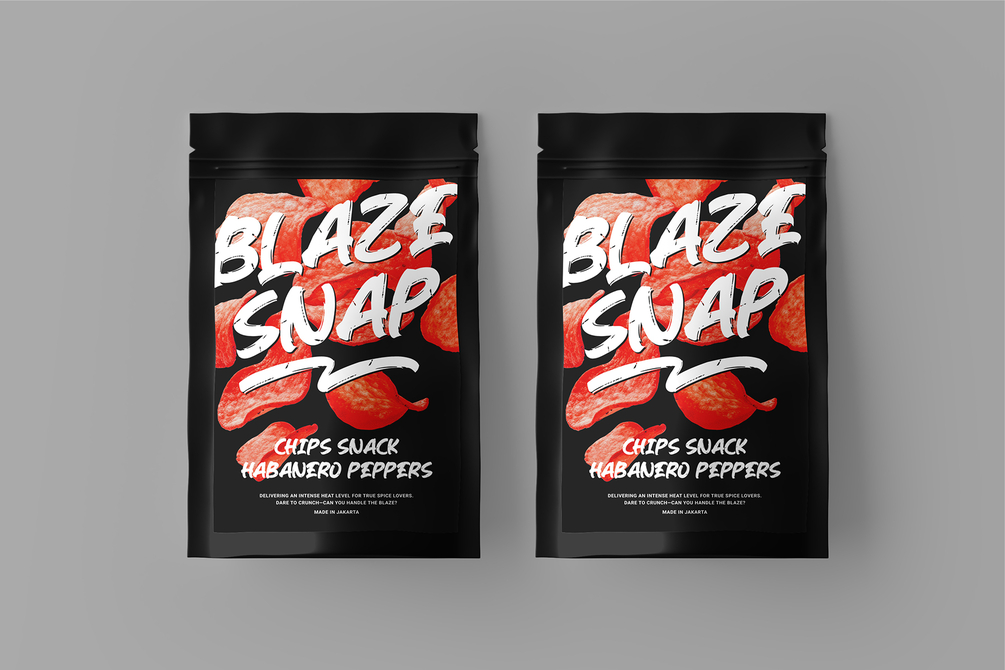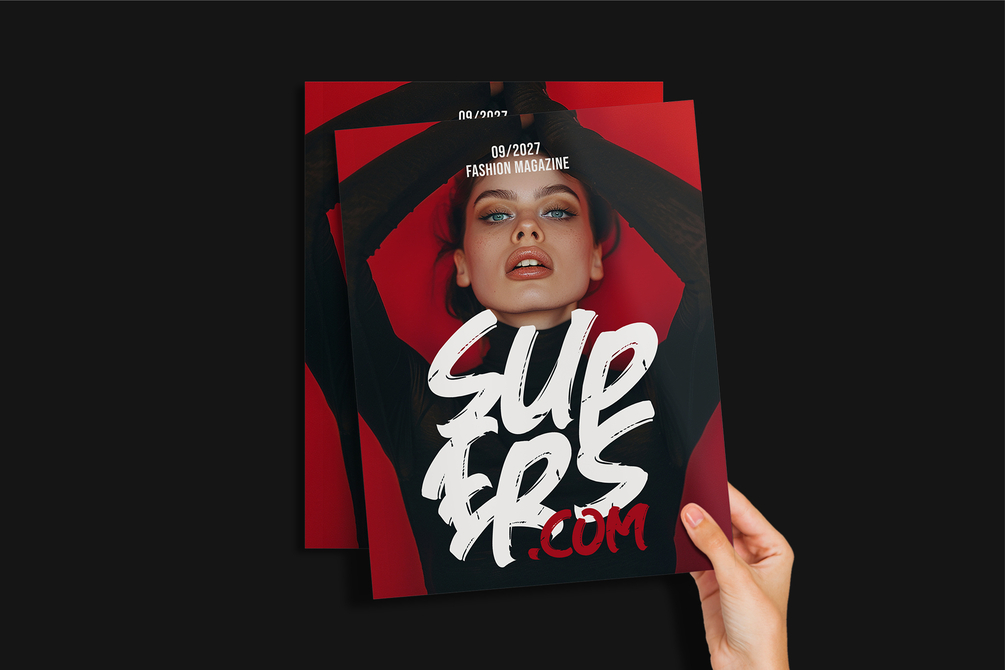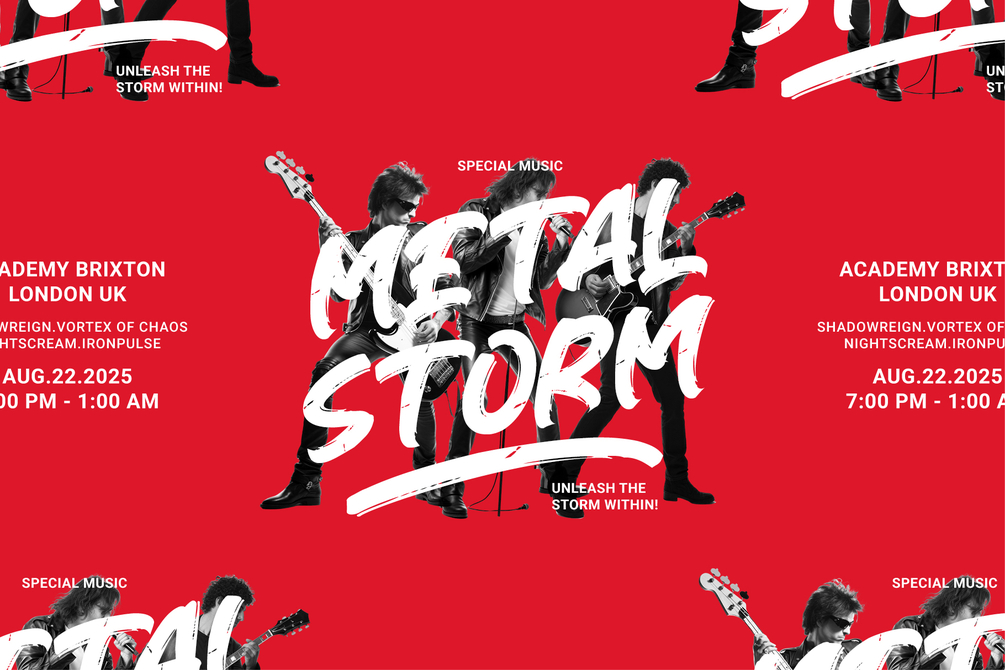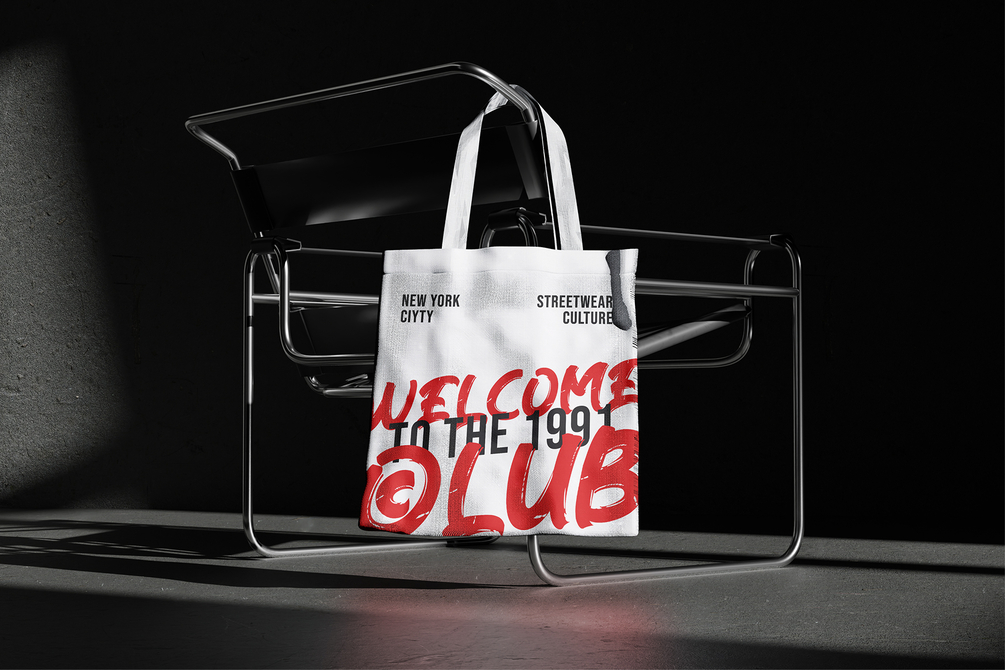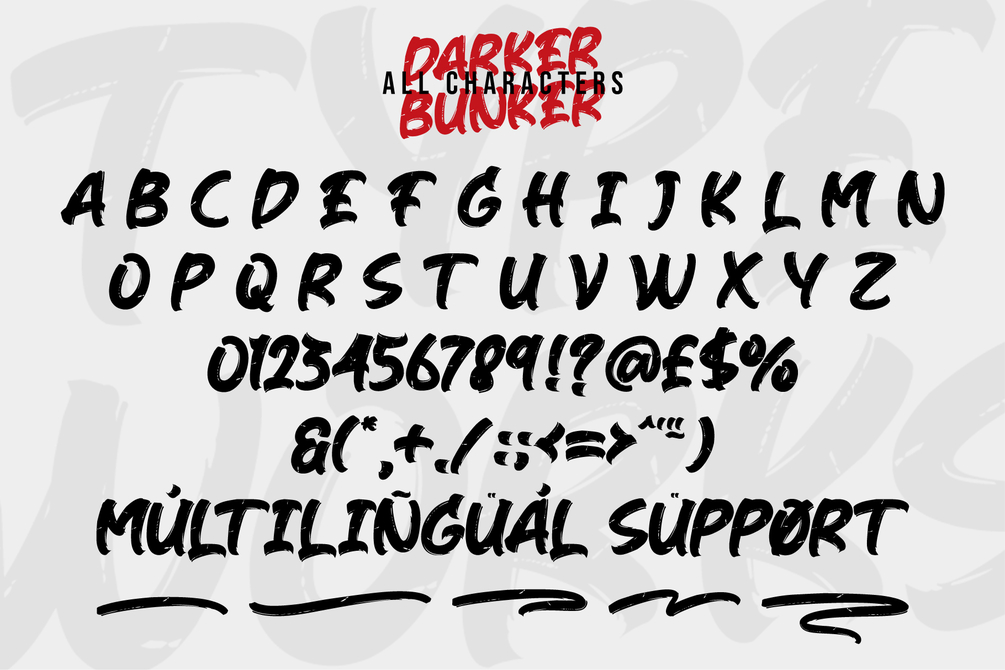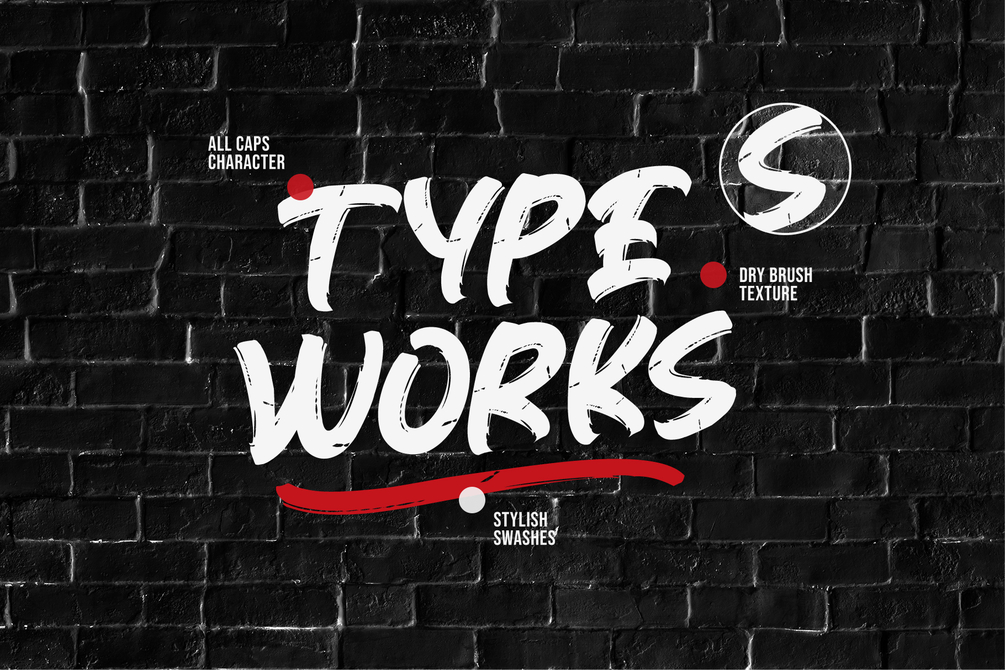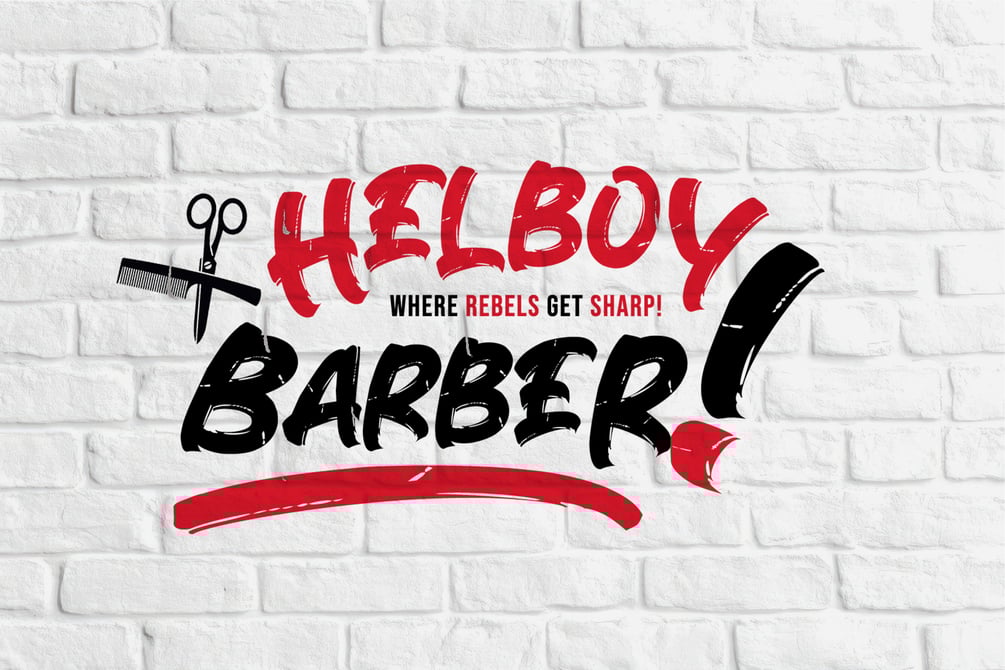
DARKER BUNKER - Brush Font
Bring energy and attitude to your designs with DARKER BUNKER, a powerful brush font crafted from natural, hand brush strokes. With its raw, and expressive strokes, this font is perfect for projects that demand a bold, rebellious edge.
Ideal for logos, Apparel Campaign, food & beverage branding, promotional campaigns, video titles, product packaging, quotes, posters, flyers, t-shirts, and eye-catching text overlays, DARKER BUNKER adds a handcrafted, urban feel to any design.
Key Features
- Perfect for high-impact branding and statement typography
- Versatile for both digital and print projects
- Adds an edgy, street-art-inspired vibe to your designs
Make a statement with DARKER BUNKER – where bold strokes meet fearless creativity!
Features :
- All Caps Uppercase & Lowercase
- Numbers & Punctuation
- Swash
- Multilingual Support